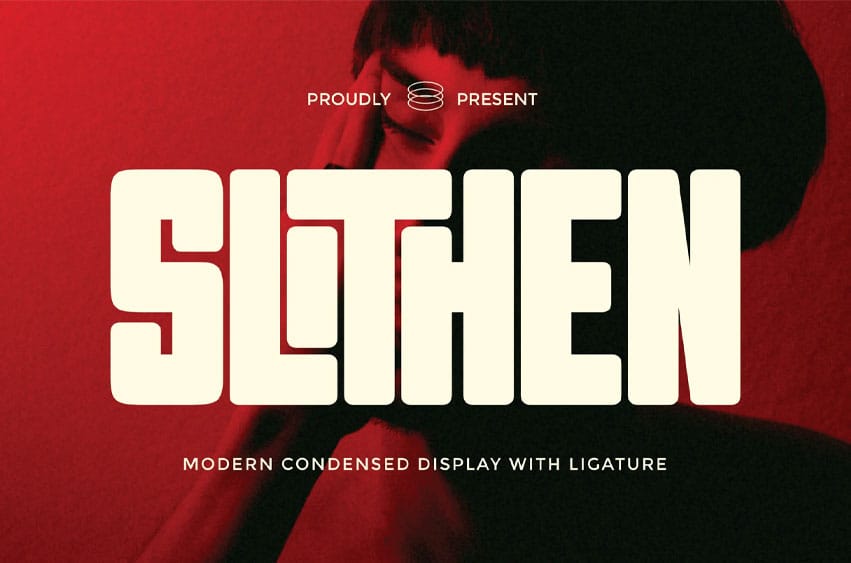
Slithen Font is a bold, modern condensed display font with playful flair. Its soft-rounded corners, lively ligatures, and retro-chic vibe bring charisma to any design. Ideal for impactful logos, eye-catching posters, album art, standout packaging, and unforgettable brand identities.